Fonts to run with
Before pixels and plagiarism scandals, Lance Wyman gave Mexico City 1968 its geometric soul. As Rio looms, a look back at the designer who made Olympic branding an art form.
Newark, New Jersey, isn’t a glamorous city but it was here in 1937 that one of the US’s most influential graphic designers was born. With projects ranging from logos to wayfinding and the design for transport systems, the simplicity and clarity of Wyman’s work have become his calling cards. As another Olympic year is upon us with Rio 2016 and with the cyclical logo debates that come with it and future games (Tokyo 2020 being particularly controversial following a plagiarism claim), now is the time to take stock of the creations of a graphic master.
Foremost in Wyman’s portfolio is the branding for the Mexico City Olympic Games of 1968. So how did it come about that Wyman, then in his late twenties, was charged with designing the logo, identity, typography, posters, signage, postage stamps and even clothes and merchandise for the Mexican games?
Excited at the thought of this massive graphic-design contract, Wyman got himself a one-way ticket to Mexico City where his first port of call was the Museum of Anthropology. From his meticulous if cluttered Upper West Side home and studio, Wyman recalls his first impressions: “The images that came out of those early cultures were some of the most beautiful things I had ever seen. They took simple geometry to describe nature, mythology, even emotions.”
It was this earnest and wholehearted appreciation for a Mexican vernacular that drove the entire Olympic project for Wyman: from the MEXICO 68 font that used a three-lined typeface to the official posters with their radiating concentric lines that evoke pre-Hispanic patterns. Those early cultures are most definitely expressed but Wyman’s genius was to make them totally contemporary using all the graphic artistry he could muster.
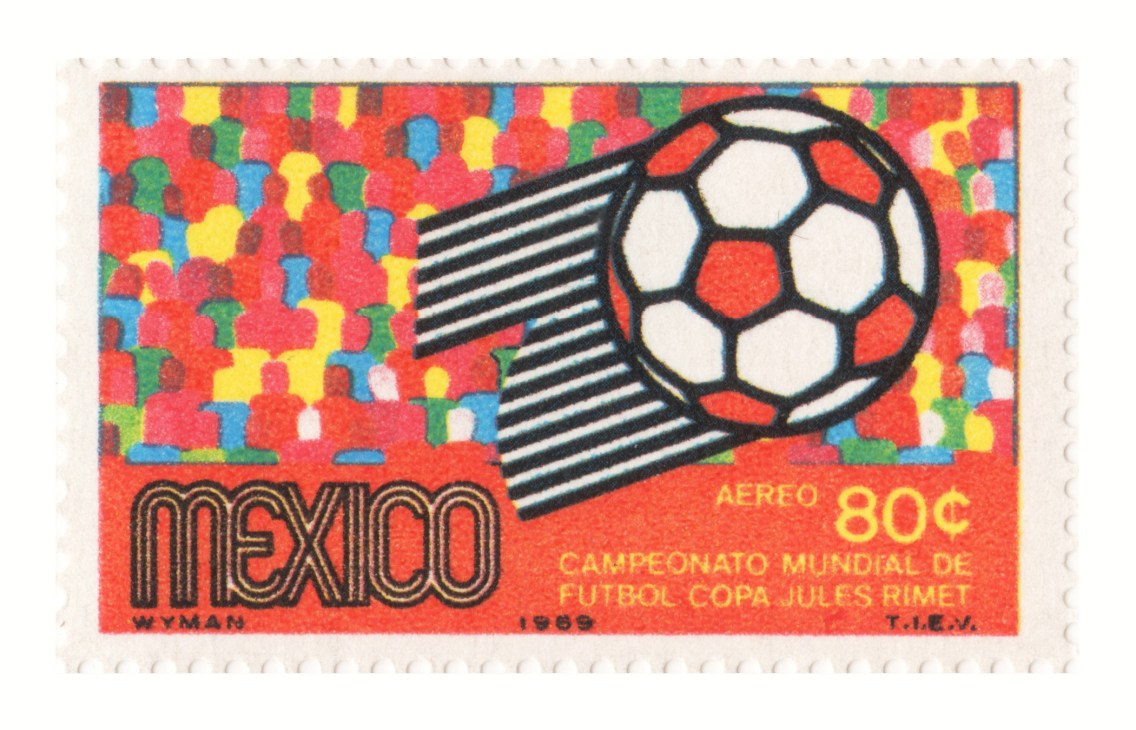
The typeface and the signage have a dynamic quality, a fitting image for a logo representing sport. The icons, badges and signs designed by Wyman and his team are a testament to both Wyman’s rigour and a wilful sense of humour. That lovably simple pictorial style would be seen in Wyman’s future career whether for the Minnesota Zoo where handsome animal logos abound or for the wayfinding scheme at the National Mall in Washington.
“The whole Olympic programme was led by architect Pedro Ramírez Vázquez,” says Wyman. “We had a very effective team. We used to joke and call Vázquez the ‘good dictator’ but in fact, from the design point of view, he had that discipline and organisational skill of an architect.”
And how does Wyman think designing for the Olympics has changed since then? “I believe the Olympics themselves have changed. Mexico was fortunate in being one of the last ‘pure Olympics’. I mean the games are not just expressing sports anymore.”
In a mark of success of the 1968 designs Wyman’s involvement with Mexico continued long after the Olympics. His designs for Mexico City Metro show Wyman’s passion for urban clarity. Brash illuminated platform signage, pictorial station logos and easy-to-read maps show Wyman’s continual quest for a rational visual approach. To this day his influence and reputation in Mexico cannot be overestimated and 2014 saw Mexico City’s Muac (a contemporary-art museum) hold a well-attended retrospective of Wyman’s work.
Wyman’s design CV is as colourful and vibrant as the menagerie of masks, icons and trinkets that hang on his studio walls. Despite the variety of work there is a common thread that links all the graphic projects. “Wyman always managed to develop a language of communication, usually without written linguistic tools. You can feel his obsession with effective communication throughout,” says Adrian Shaughnessy of London’s Unit Editions, which has published a hefty monograph of Wyman’s designs.
The art of graphic design is surely to communicate in an effortless, even enjoyable, way. But the art of developing an image or brand for a whole city or country throws up many challenges. “I think first of all there has to be an attitude of wanting to do it,” says Wyman of his branding projects. And like any one of the hundreds of logos, emblems, signs or icons that he has created, Wyman’s strategy is clear.
From Detroit to Monterrey, Wyman has used a very personal and involved manner when branding cities. “All cities are challenging and all have their own nature,” he says. The wayfinding scheme for the City of Detroit in 2000 shows Wyman clarifying areas of the city using a visual language that hints at its urban heritage. “There I found a richness in what I had to work with,” he says. “And that should be the case in every city.”
Appropriating culture and devising a simple design language from it has to be Lance Wyman’s legacy. To confirm this, in Mexico he is regarded as an adopted national hero and interest in him is ever present. Having come full circle – as if to reiterate a lifelong obsession with America’s southern neighbour – Wyman is now working on a new branding concept for Mexico City. “When I go to Mexico I have a hard time coming back to New York, if I’m honest with you,” says the sprightly septuagenarian with visible pride.